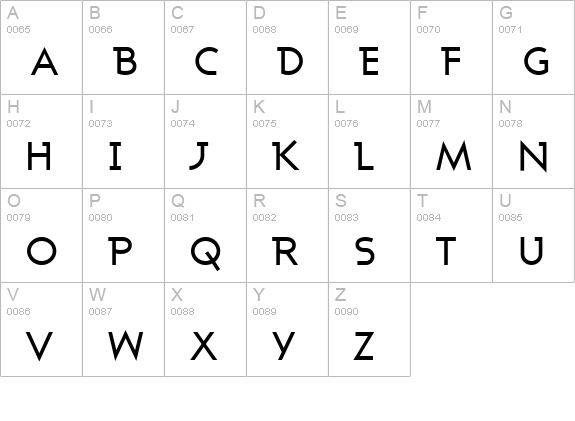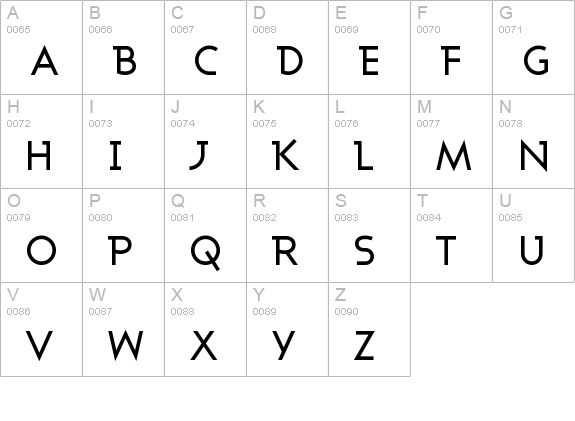
Ashby Medium is a balanced, medium-weight variant in the Ashby typeface family \xE2\x80\x94 well suited to sub-headlines, navigation, and balanced editorial work.
Ashby Medium font is a modern and elegant typeface that strikes the perfect balance between sophistication and readability. With its clean lines and timeless appeal, this font is versatile and suitable for a wide range of design projects. What sets Ashby Medium font apart is not only its aesthetic appeal but also the fact that it is available for free download at FontsMarket.com. This means that designers and creatives can easily access this high-quality font without any cost, making it a valuable addition to any font library. Whether you are working on branding materials, editorial designs, or digital projects, Ashby Medium font will bring a touch of style and professionalism to your work. Its medium weight makes it easy to read both in print and on screen, ensuring that your message is clear and impactful. Overall, Ashby Medium font is a must-have for anyone looking for a modern and versatile typeface that is both visually appealing and freely accessible. Download it today from FontsMarket.com and elevate your design projects to the next level.